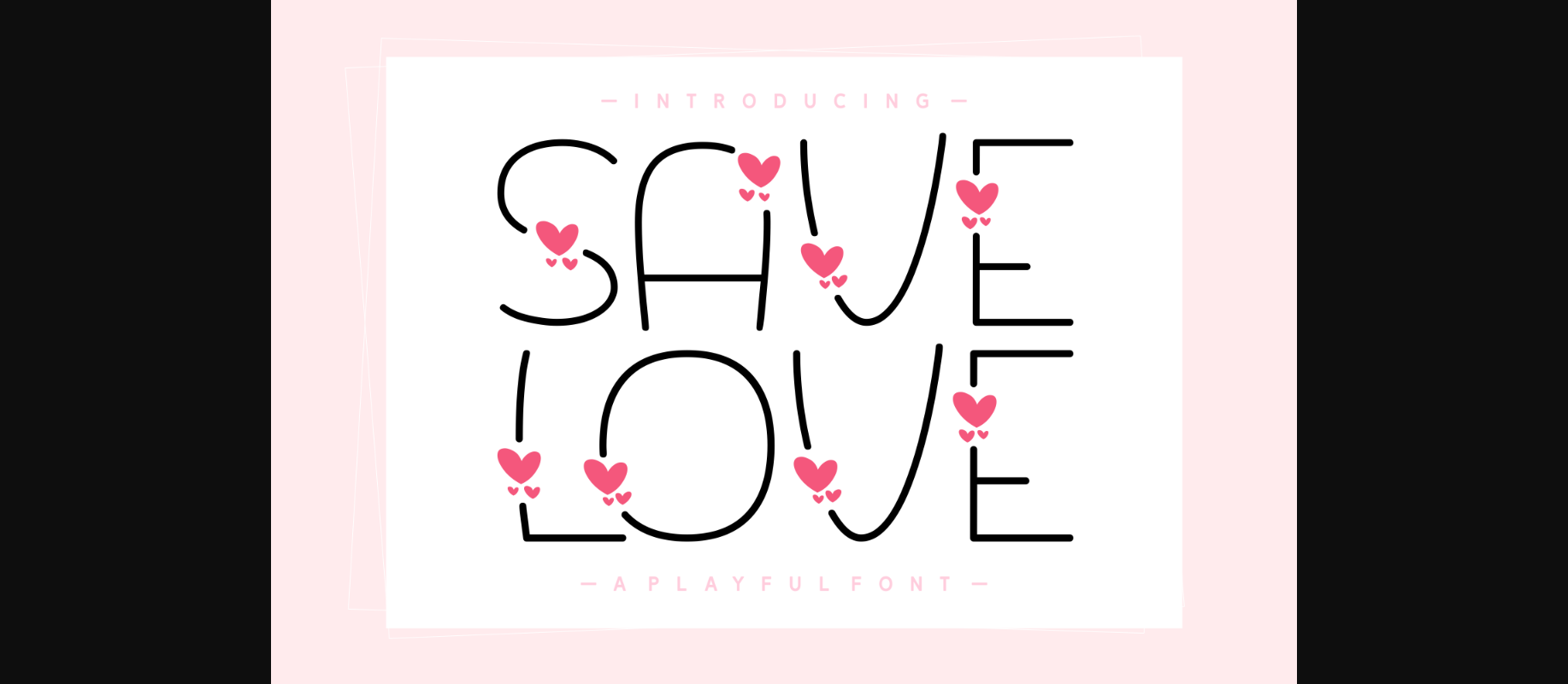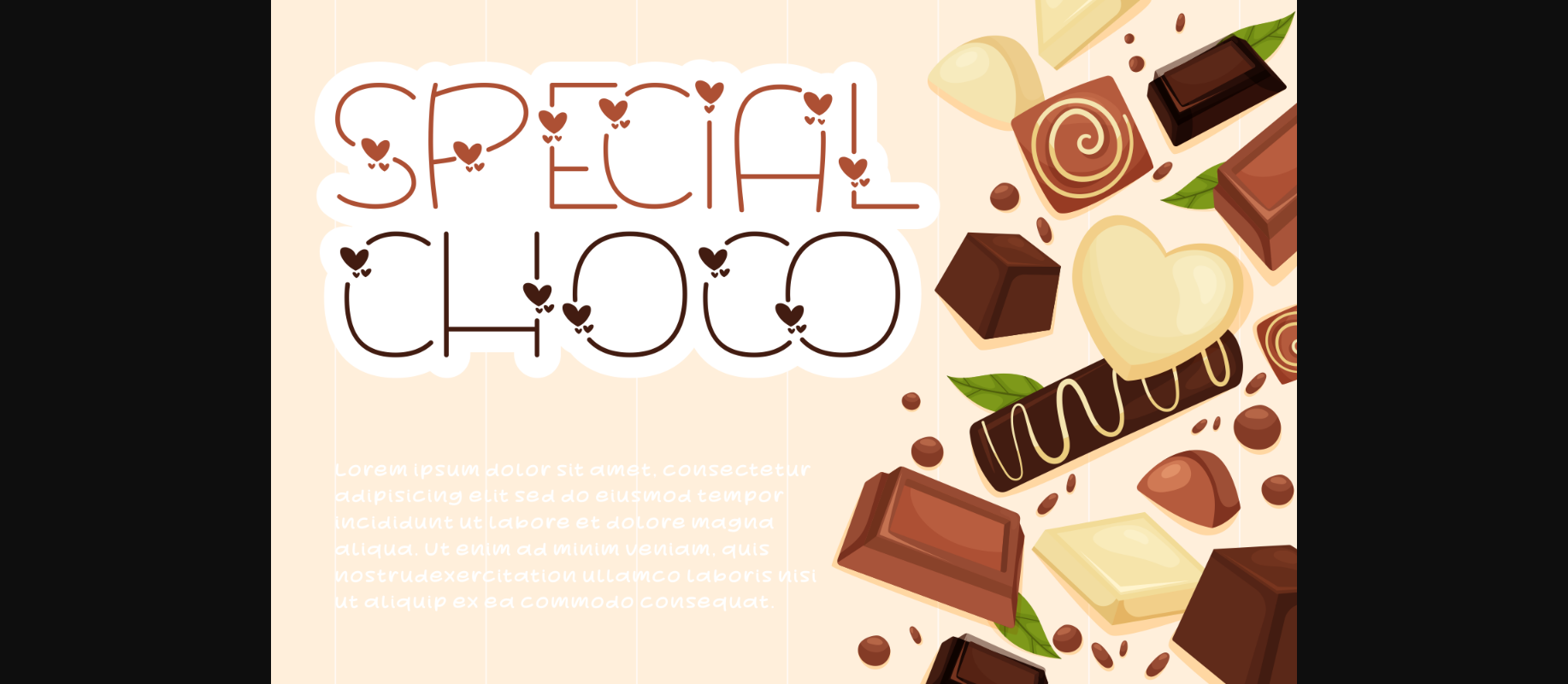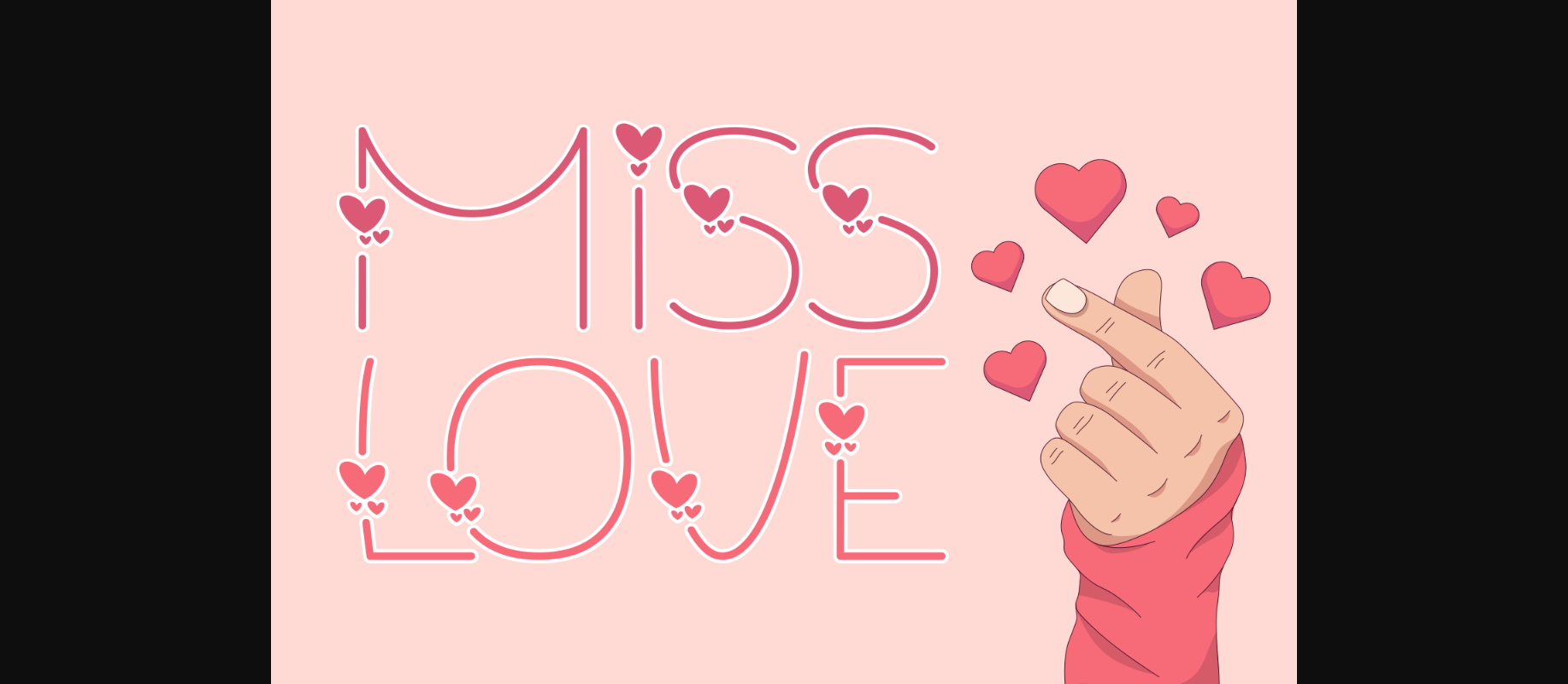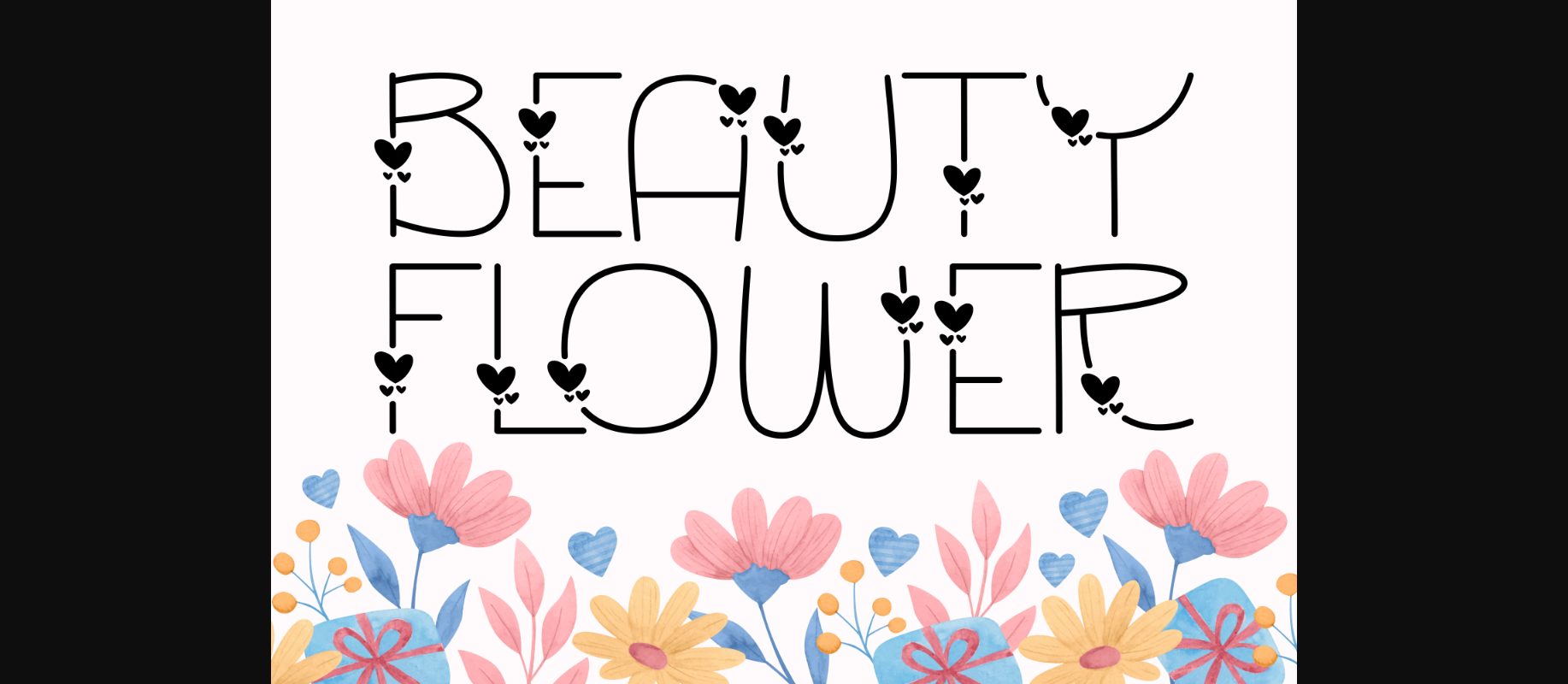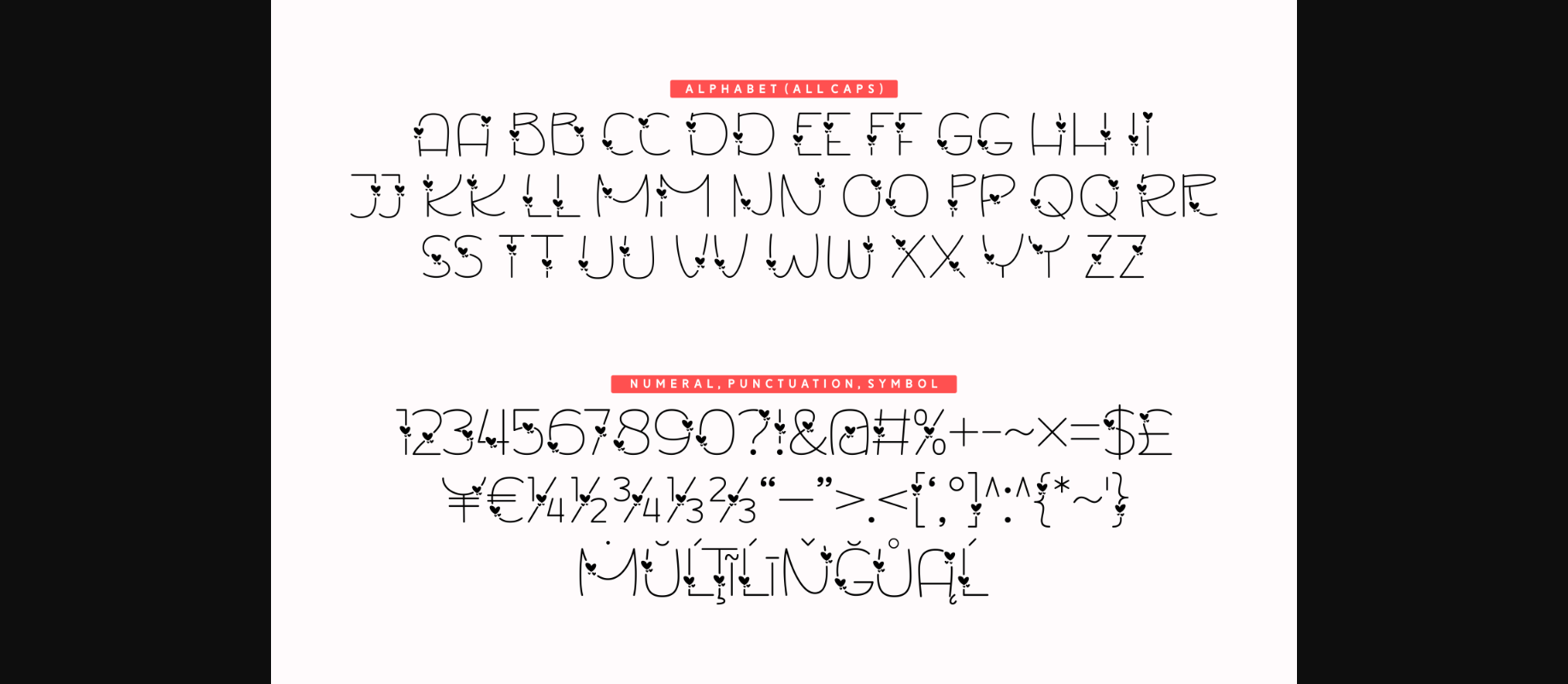
About Save Love Font
Save Love is a sweet and romantic handwritten decorative font. Whether you’re using it for crafts, digital design, presentations, or making greeting cards, this font has the potential to become your favorite go-to font, no matter the occasion!